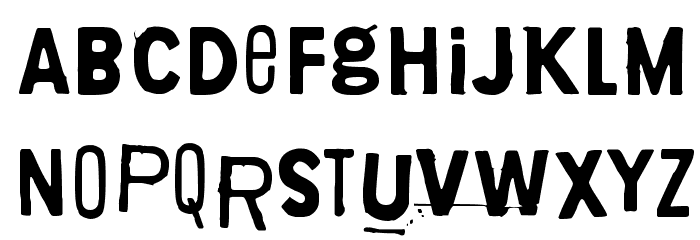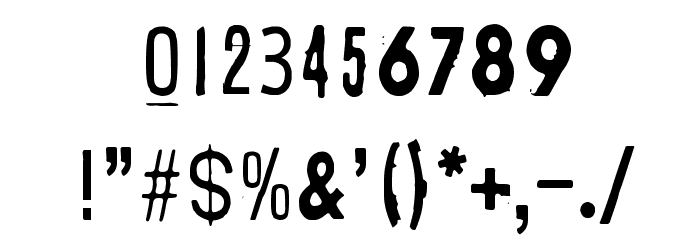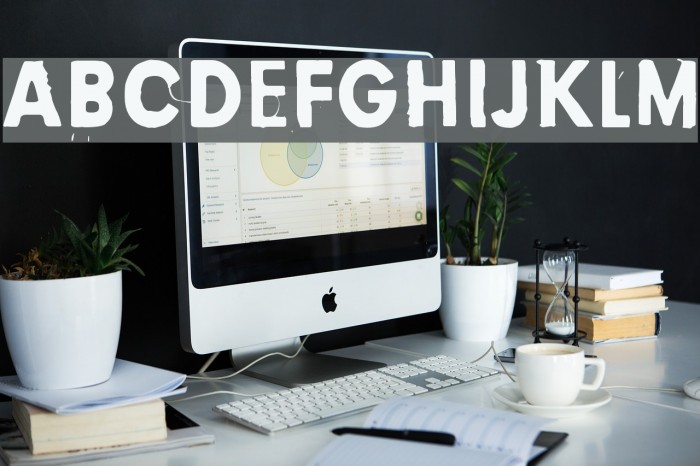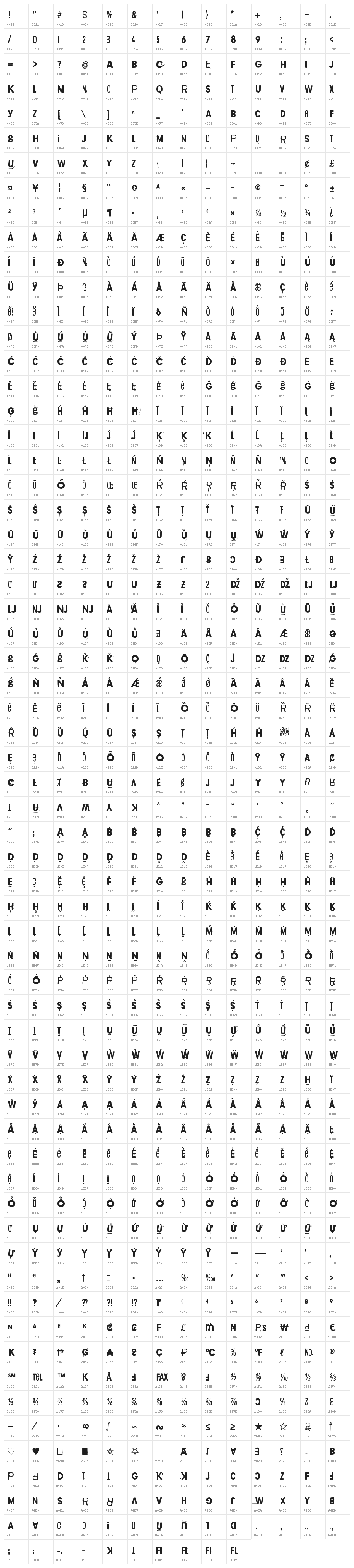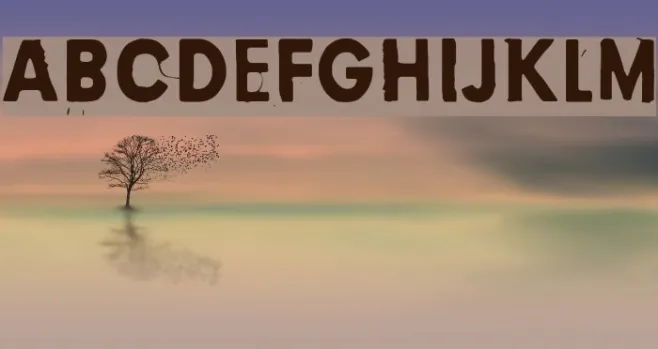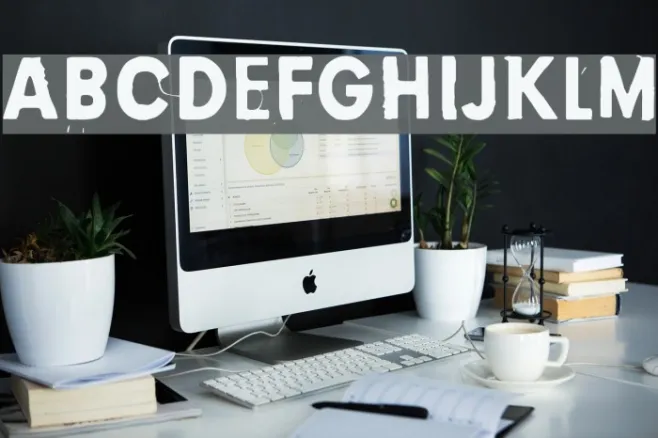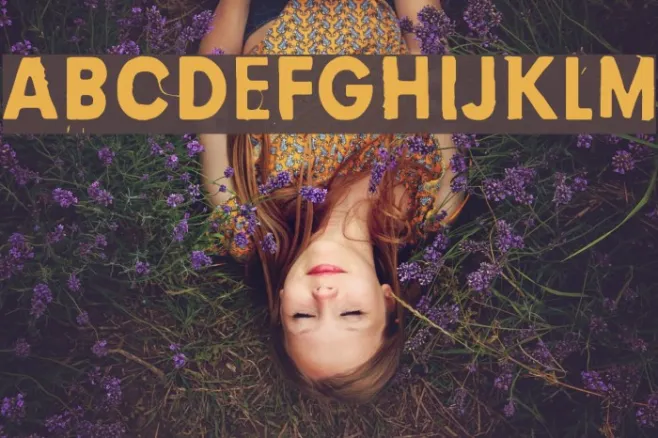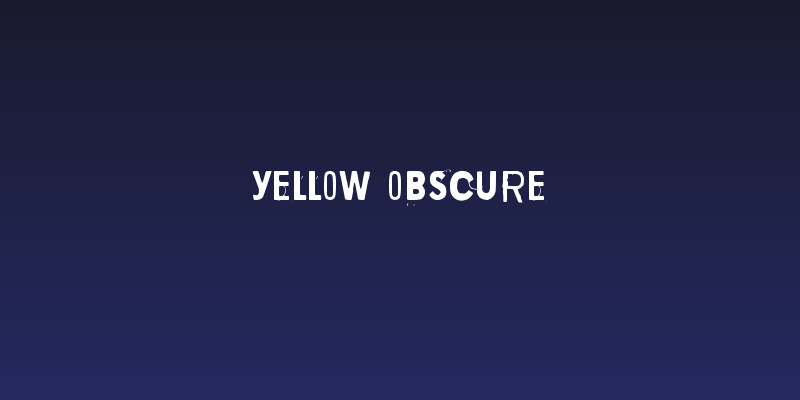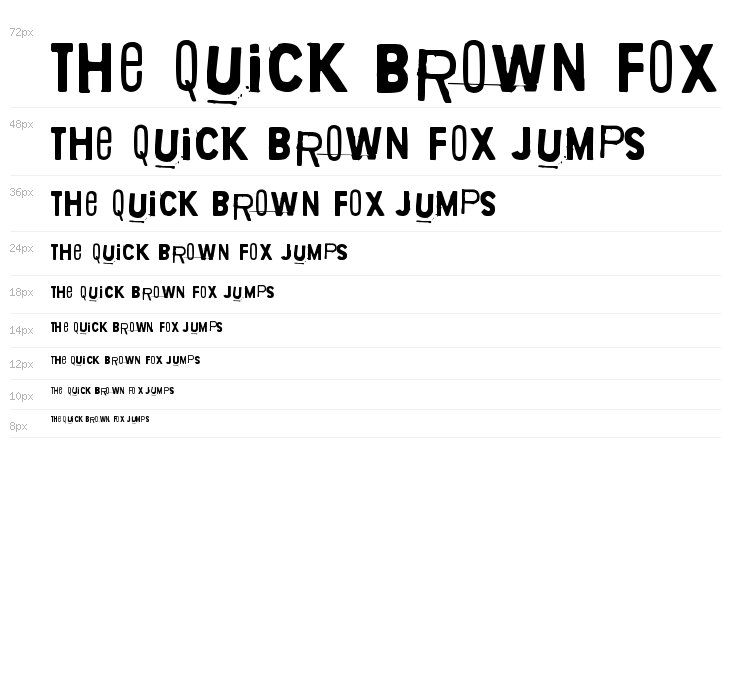
Yellow Obscure Font
This font features a bold and distressed style, characterized by its uneven edges and varying stroke thicknesses. The uppercase letters are prominent and impactful, while the lowercase letters maintain a consistent yet rugged appearance. Numbers and special characters follow the same distressed aesthetic, adding to the overall grunge feel. The font's irregularities give it a handcrafted look, making it stand out in any design. Its unique style is perfect for projects that require a bold statement or an edgy, artistic touch.
A bold, distressed font with a handcrafted, grunge aesthetic.
- Proposed Projects: Ideal for album covers, posters, branding for edgy products, and artistic projects requiring a bold statement.